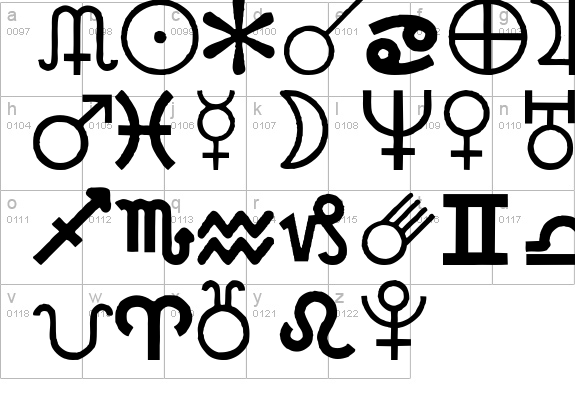
CarrAstroDings Font Details
Introducing CarrAstroDings font - a whimsical and playful typeface that will add a touch of fun to your designs. This unique font features a mix of astrological symbols, doodles, and decorative elements, making it perfect for creating eye-catching headlines, posters, and social media graphics. With its quirky charm and versatile design, CarrAstroDings font is sure to make your projects stand out. What's even better is that CarrAstroDings font is available for free download at FontsMarket.com. So go ahead and unleash your creativity with this delightful font that will bring a touch of magic to your designs.